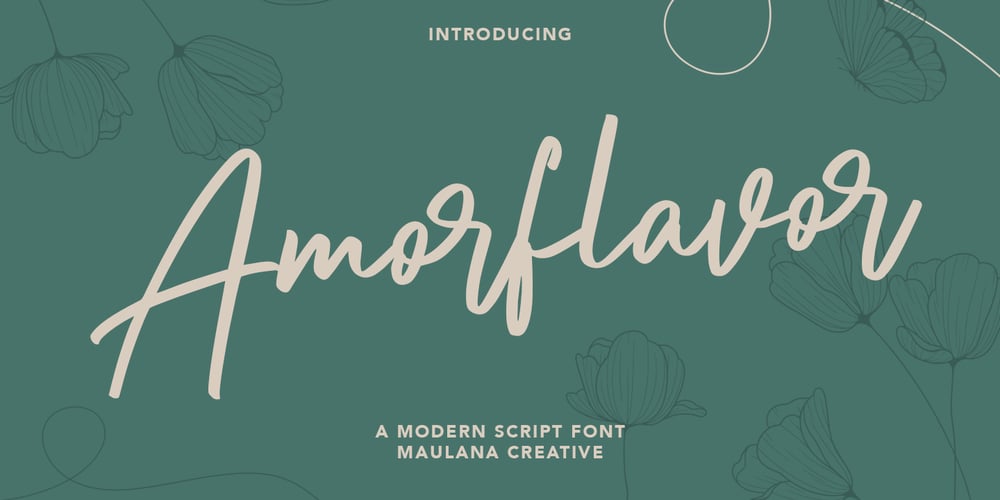
Amorflavor Font Family was designed by Gilang Maulana and published by Maulana Creative. Amorflavor contains 1 styles and family package options. Amorflavor is a modern script font, With a clean stroke and fun character. It has Opentype features of ligatures, makes it a perfect choice for branding and digital designs. Use this font for logos, social media, websites, blogs, instagram, social media, business cards, branding, and more! Amorflavor script font support multilingual more than 100+ language. and good pair for your secondary text font with sans or serif. Make a stunning work with Amorflavor script font. Cheers, MaulanaCreative